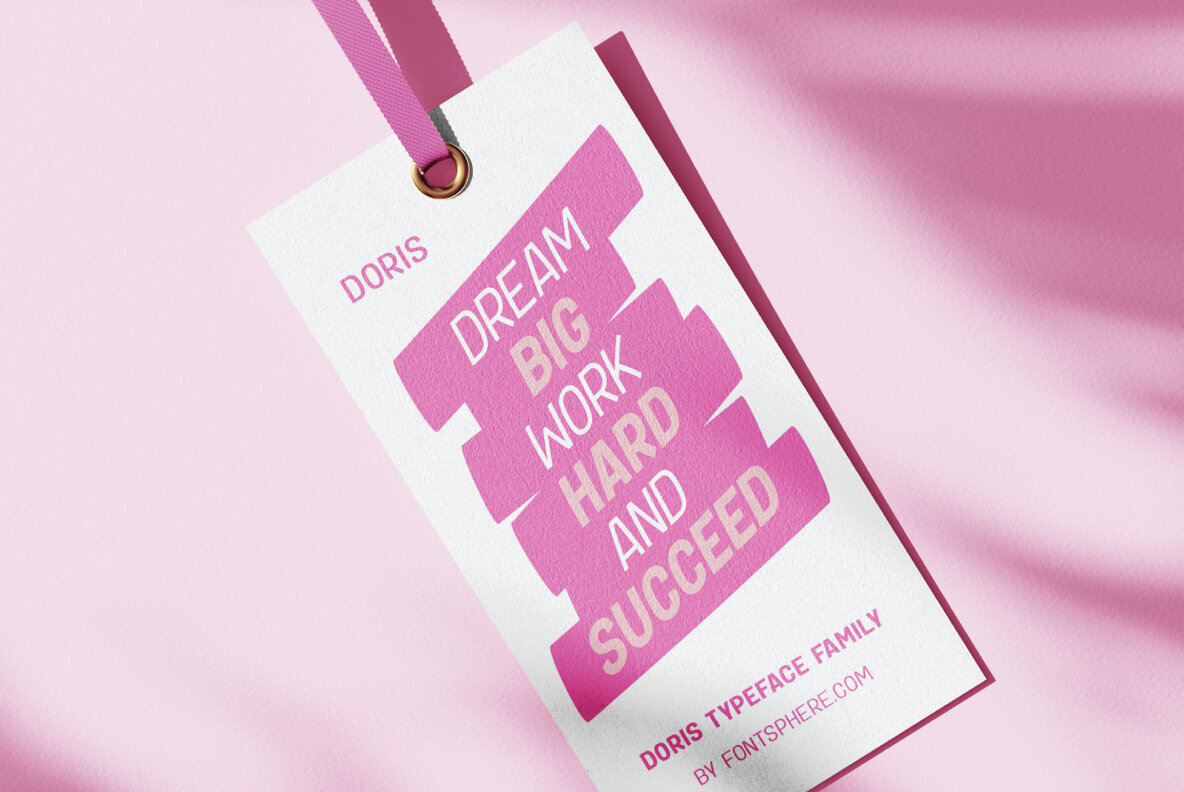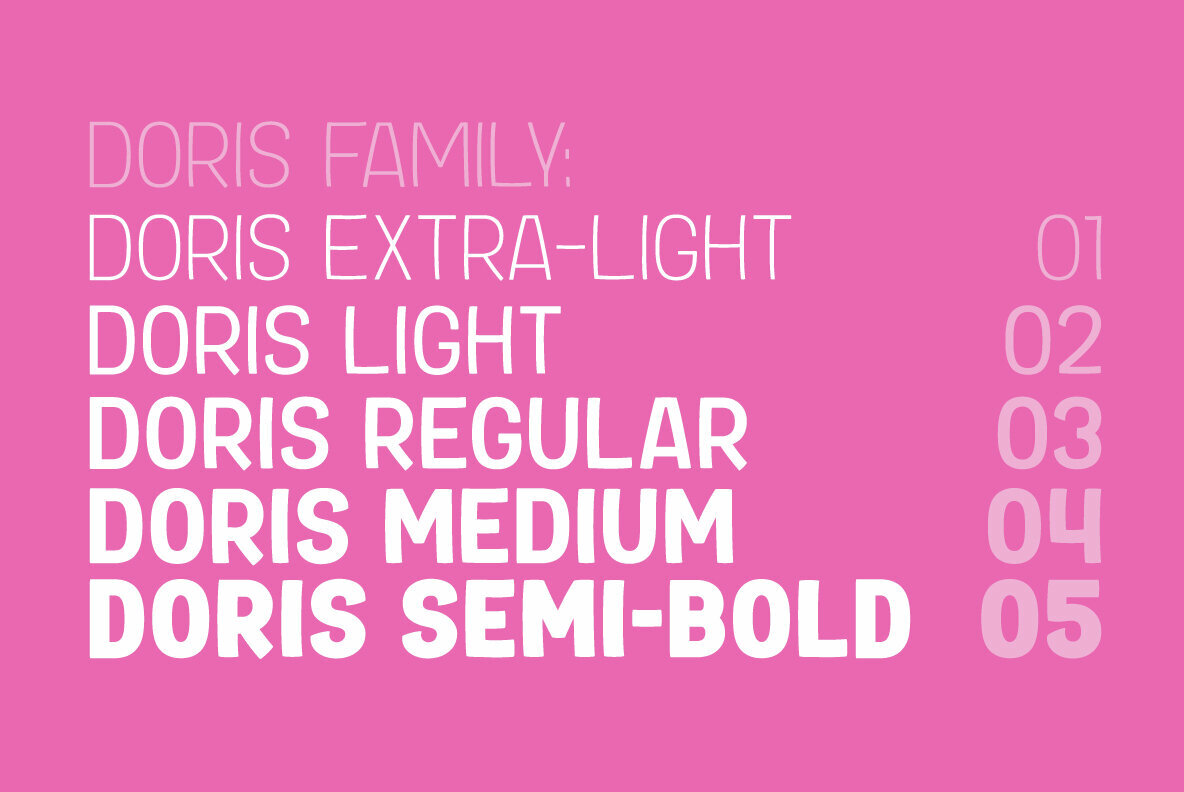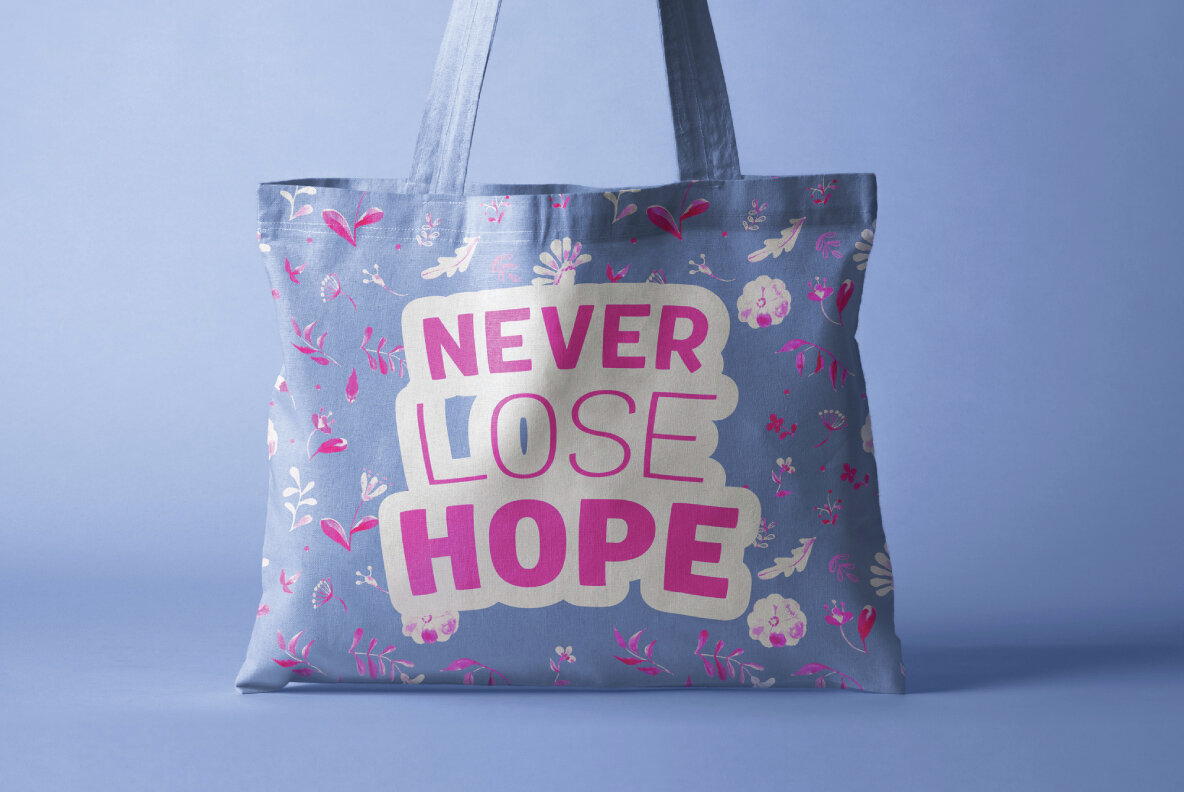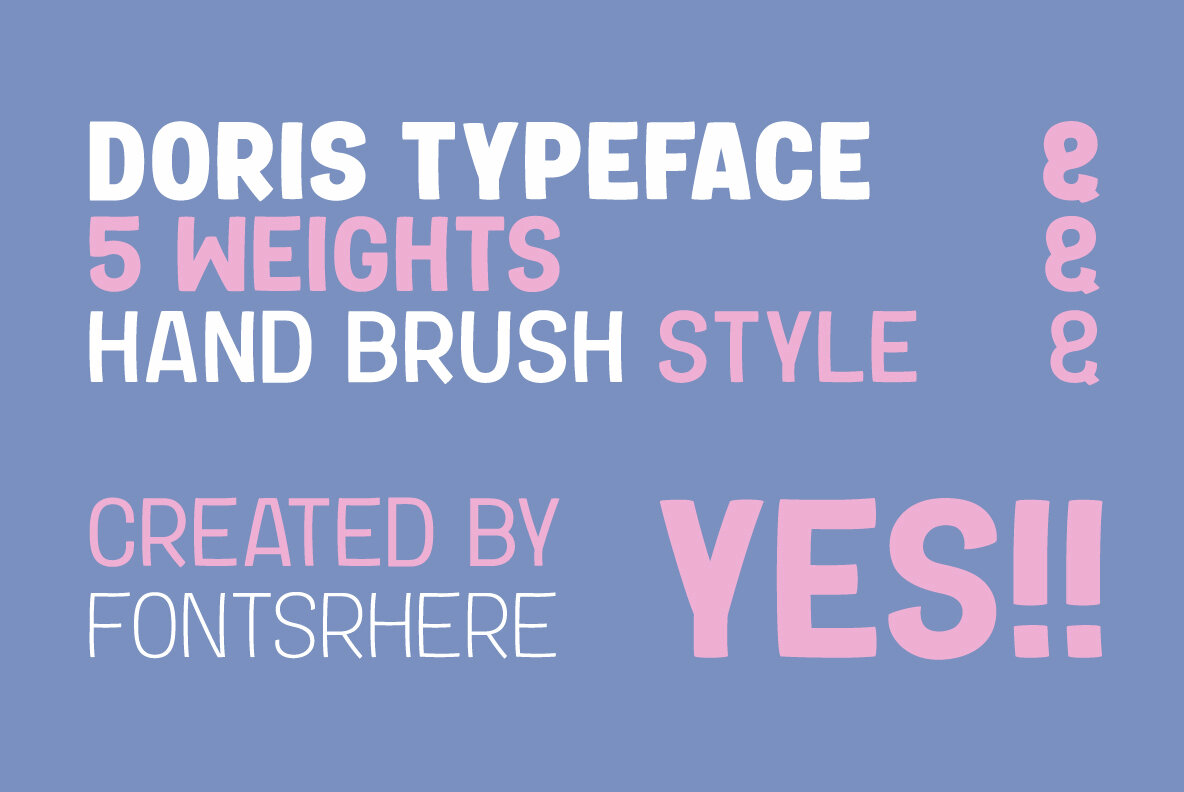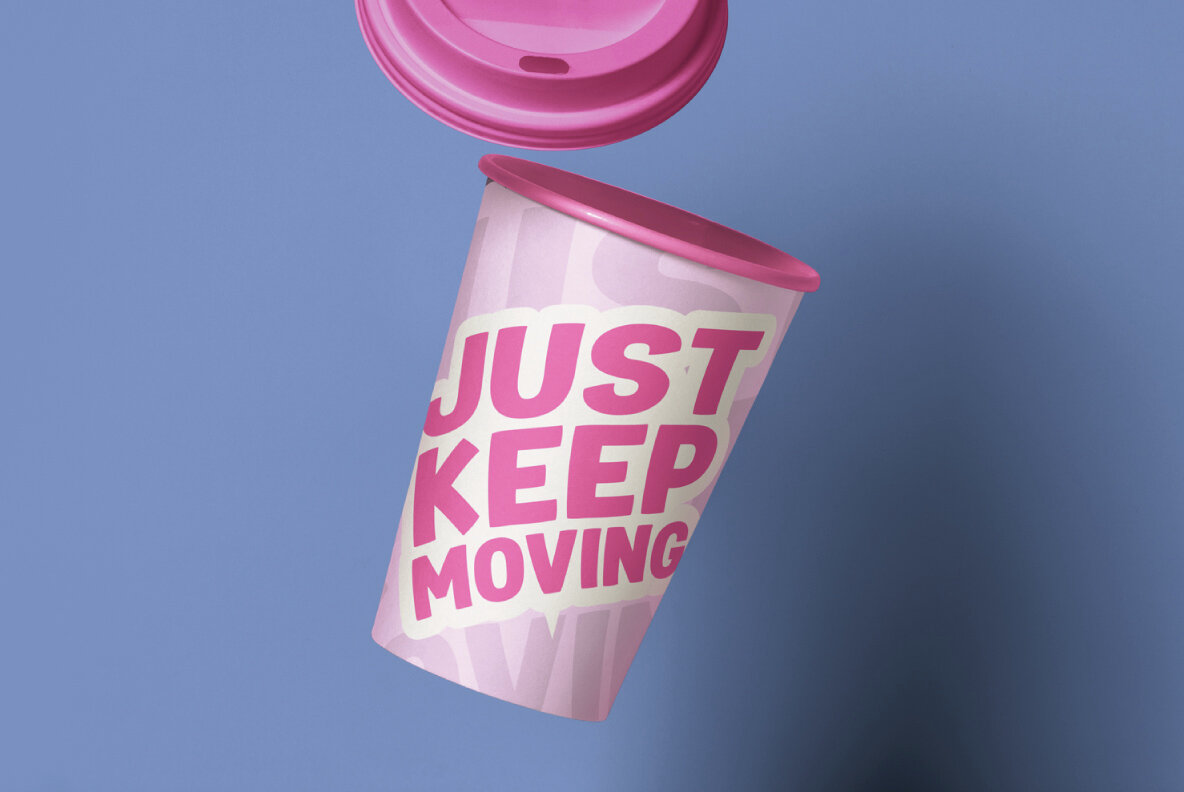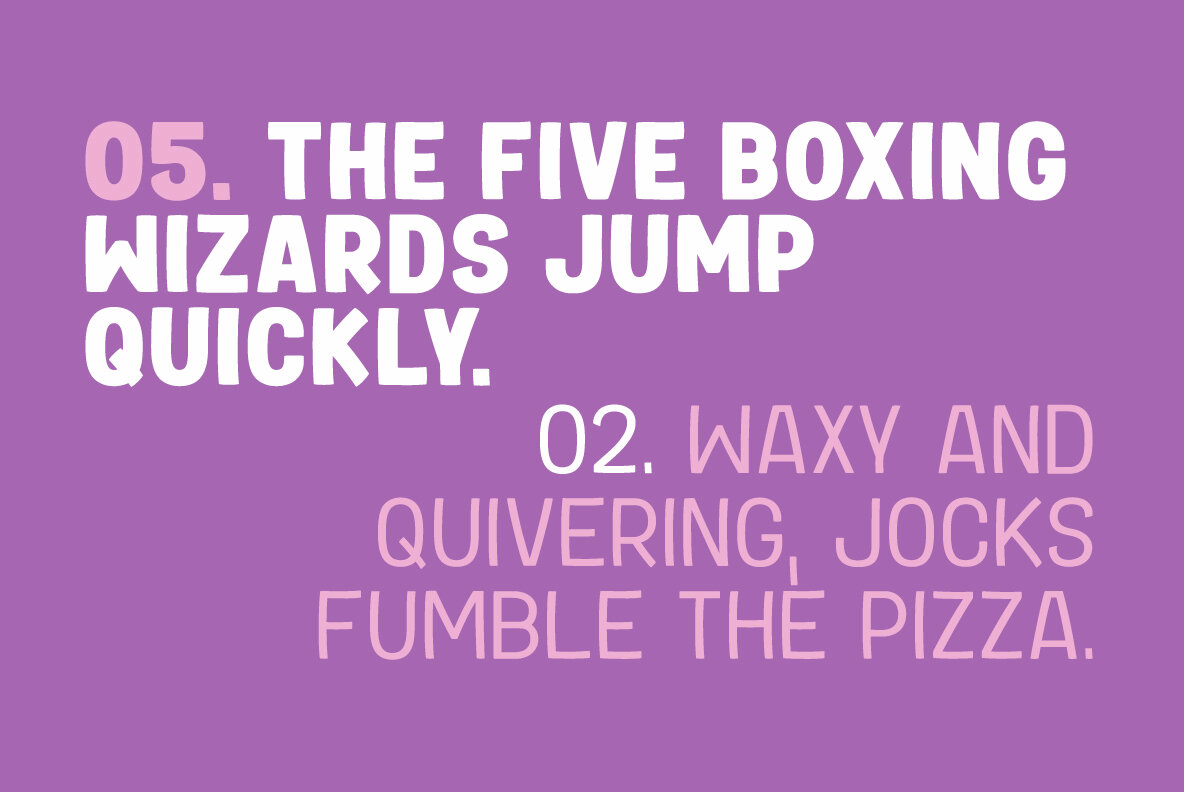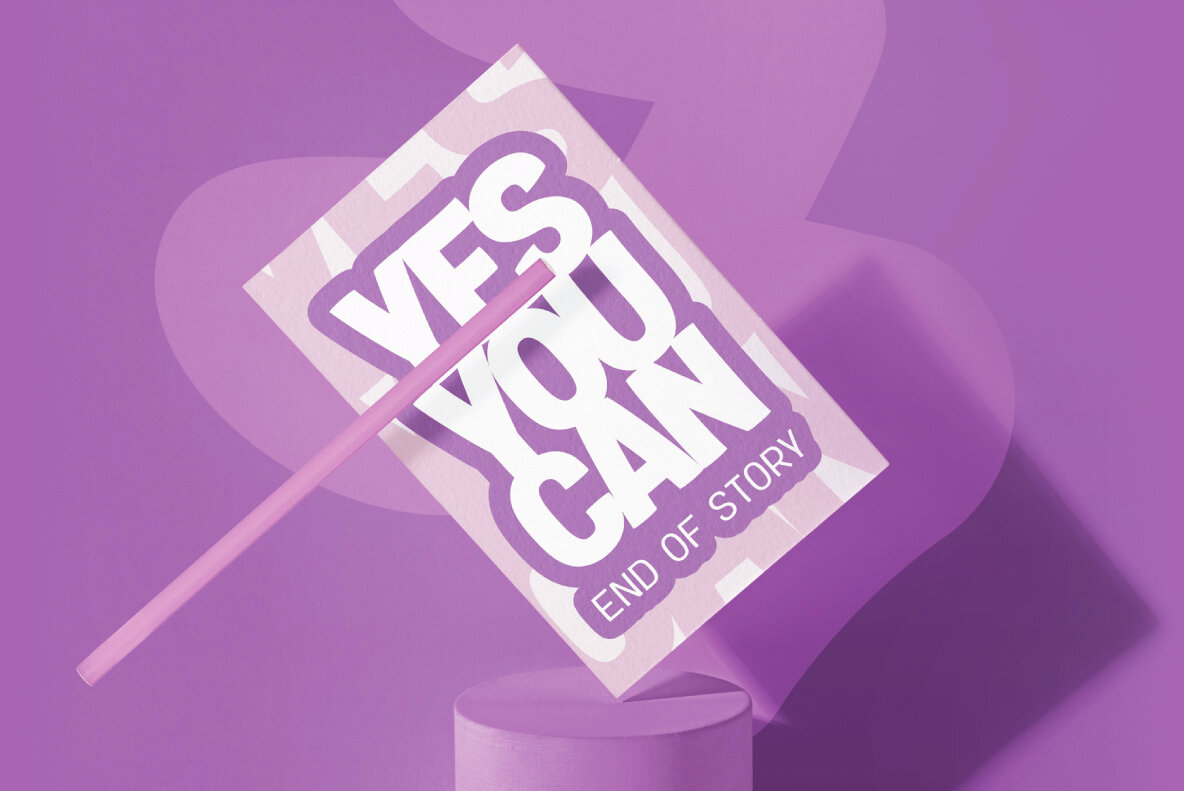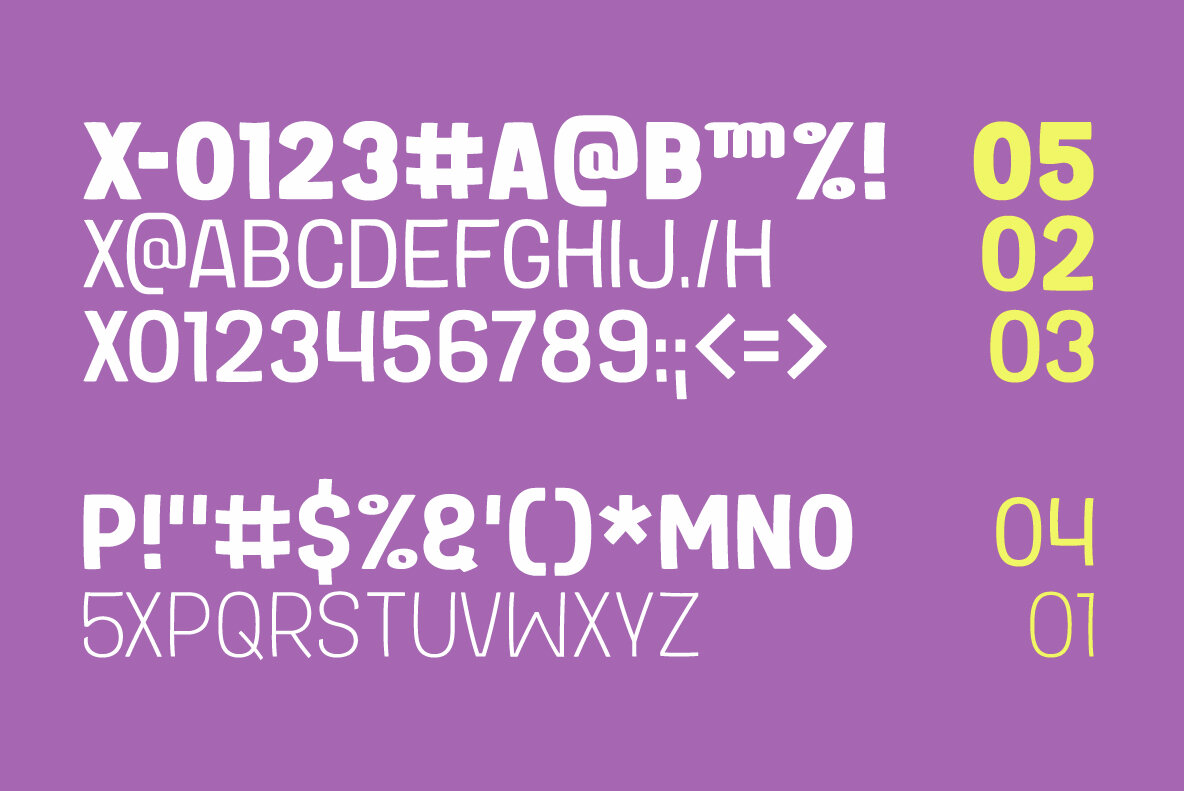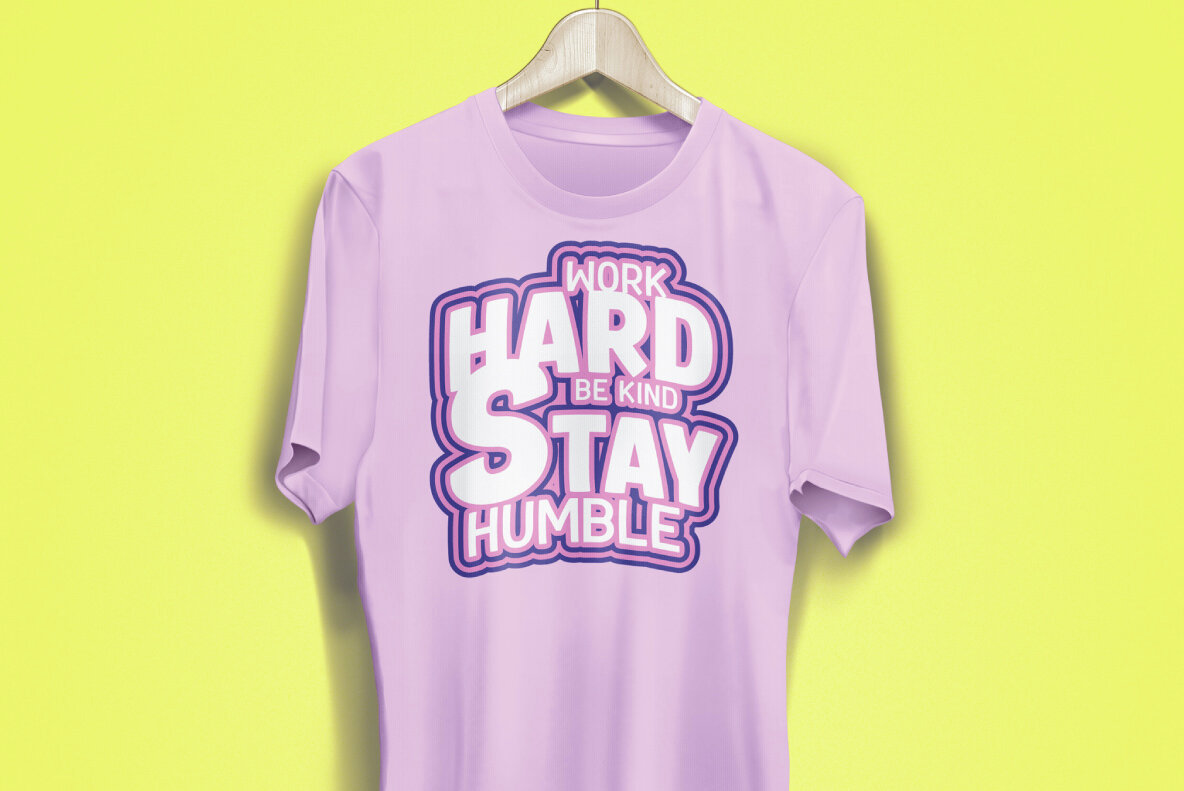
Doris Font
DORIS is a stunning new font designed to add a touch of sweetness and charm to your designs. It was originally created for a series of children's books, then it was expanded with additional glyphs and additional thicknesses were added. Usage Recommendations:Introducing DORIS: A Sweet Handwritten Font Family
Let DORIS bring a touch of sweetness and handwritten charm to your designs. With its delightful handwritten style, multiple thickness options, and endless usage possibilities, DORIS is the perfect companion for creating projects that are full of happiness and joy.